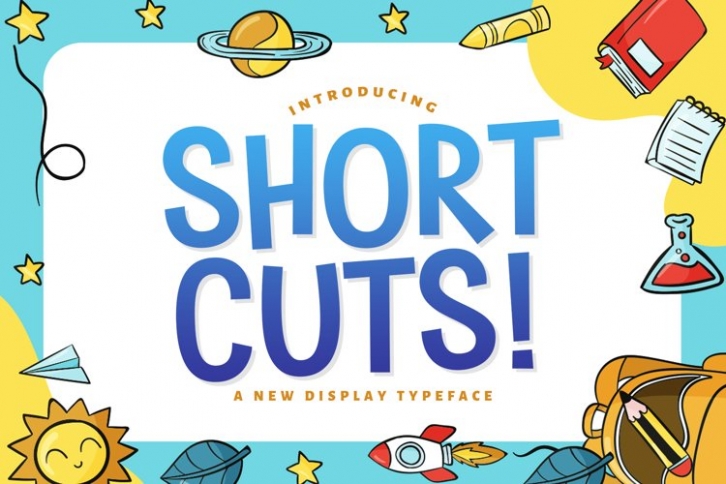
Shortcuts is a gorgeous font that was realeased on December 30, 2021. The font can be used in many style contexts and design environments. Perfect for invitations, magazines, websites, logos, and more! It was designed by plusstore and the file size is 2.85 MB. Thanks for checking out this font!